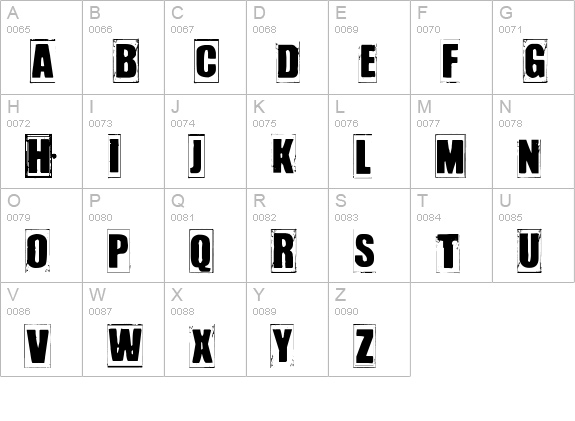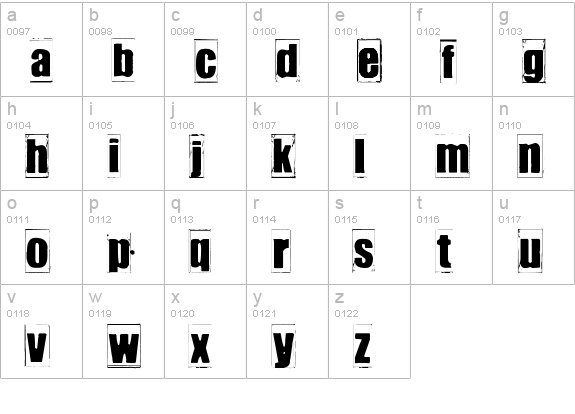
IKHIOOGLA3 Font Details
Introducing IKHIOOGLA3 font, a modern and stylish typeface that is perfect for adding a touch of elegance to your designs. This font features sleek lines and a contemporary look that will make your projects stand out. Whether you are designing a logo, website, or any other creative project, IKHIOOGLA3 font is sure to make a bold statement. The best part is, this font is completely free to download at FontsMarket.com. Now you can elevate your designs without breaking the bank. Don't miss out on this opportunity to enhance your projects with the sophisticated and versatile IKHIOOGLA3 font. Download it today and unleash your creativity!